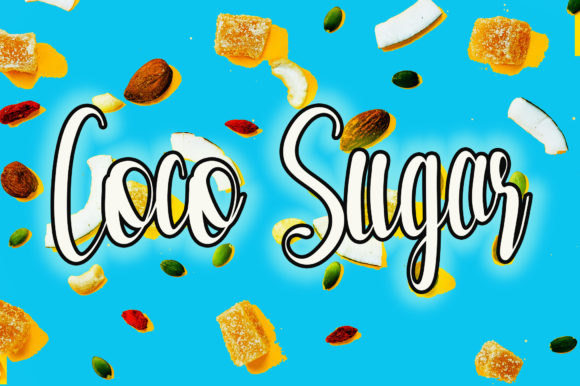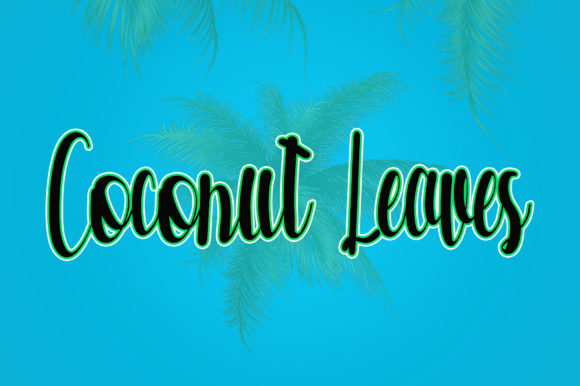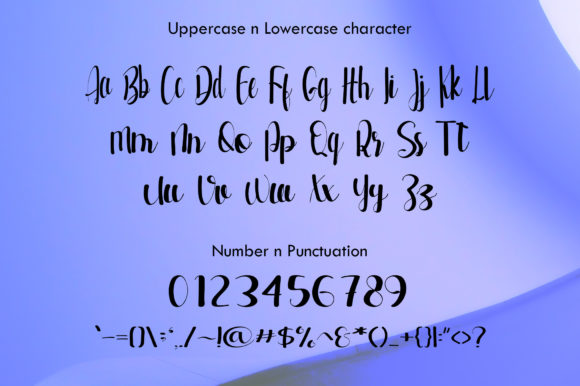
Coconuts Font: Elevate Your Designs with Elegance and Sophistication
In the world of typography, few fonts manage to strike a balance between classic elegance and modern flair. Coconuts Font is one such exquisite handwritten font that has captured the hearts of designers and crafters alike. With its masterful blend of traditional calligraphic influences and contemporary style, Coconuts Font is poised to become your new favorite. In this article, we’ll dive into the details of what makes Coconuts Font special and why it should be a part of your design arsenal.
The Essence of Coconuts Font
Coconuts Font is a beautifully crafted handwritten font that exudes class and sophistication. Its design is rooted in traditional calligraphy, yet it feels refreshingly modern and current. This unique blend makes it an ideal choice for a wide range of design projects, from wedding invitations and branding materials to digital content and craft projects.
Key Features of Coconuts Font
• Handwritten Elegance: Coconuts Font boasts a fluid, handwritten style that adds a personal touch to any project. Its elegant strokes and beautiful letterforms make it perfect for designs that require a touch of sophistication.
• Contemporary Flair: While Coconuts Font maintains its classy calligraphic roots, it also incorporates contemporary elements that make it feel fresh and modern. This balance ensures that your designs stand out without looking outdated.
• Versatility: One of the standout features of Coconuts Font is its versatility. It can be used for a variety of projects, including but not limited to, wedding and event planning, branding and packaging, digital content creation, and craft and DIY projects.
• Easy to Read: Despite its elegant and artistic nature, Coconuts Font remains highly legible, making it suitable for both headings and body text.
Who Can Benefit from Coconuts Font?
Coconuts Font is a valuable resource for a broad spectrum of designers and crafters. Here are a few groups that can particularly benefit from this beautiful font:
• Graphic Designers: Whether you’re working on branding materials, brochures, or social media content, Coconuts Font can add a level of elegance and professionalism to your designs.
• Stationery and Card Makers: If you’re into creating custom stationery, greeting cards, or invitations, Coconuts Font can help you produce stunning and personalized pieces.
• Digital Content Creators: Bloggers, YouTubers, and social media influencers can use Coconuts Font to create eye-catching thumbnails, headers, and promotional materials.
• Crafters and DIY Enthusiasts: If you’re into crafting, scrapbooking, or any form of DIY project that involves lettering or signage, Coconuts Font can be a great addition to your toolkit.
Tips for Using Coconuts Font
To make the most of Coconuts Font, here are a few tips:
• Pair it Wisely: Coconuts Font pairs well with clean sans-serif fonts for a modern contrast or with other script fonts for a layered, elegant look.
• Experiment with Colors: While Coconuts Font looks stunning in classic black and white, don’t be afraid to experiment with colors that match your brand or project’s aesthetic.
• Adjust Letter Spacing: For a more customized look, play around with the letter spacing to ensure your text is easy to read and visually appealing.
Coconuts Font is more than just a beautiful handwritten font; it’s a tool that can elevate your designs to new heights. Its unique blend of classic calligraphy and modern style makes it versatile, elegant, and perfect for a wide range of projects. Whether you’re a professional designer or a crafting enthusiast, Coconuts Font is sure to become a favorite in your collection. So why wait? Fall in love with Coconuts Font and bring your projects to the highest levels of sophistication and style.